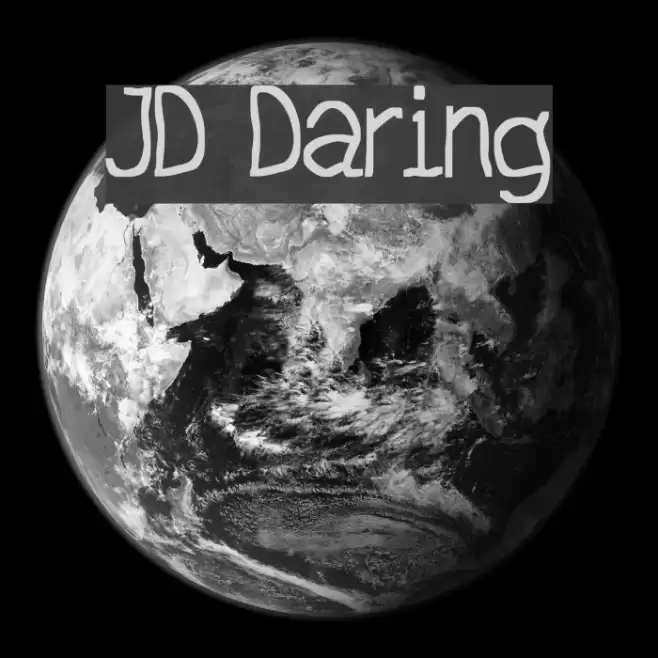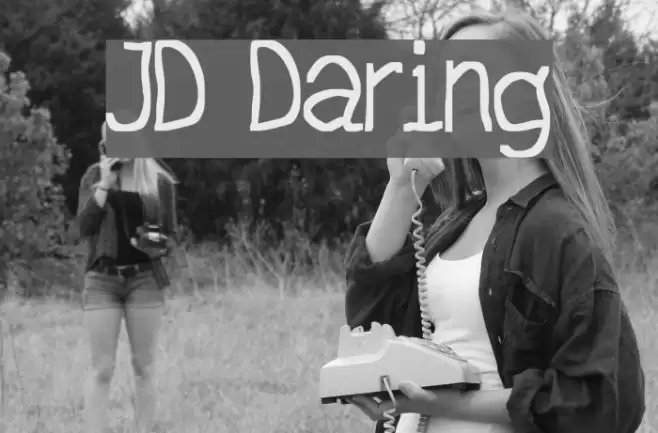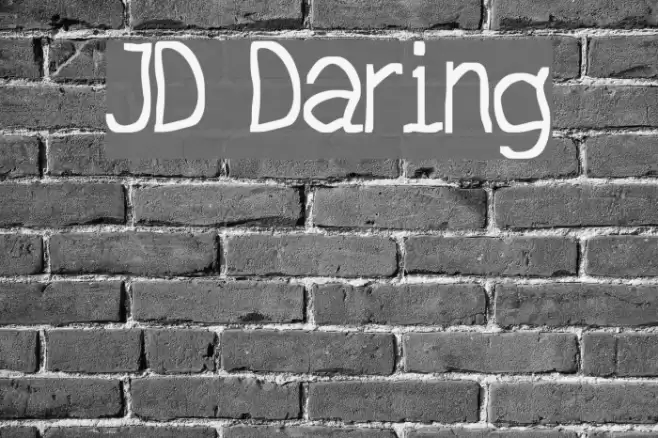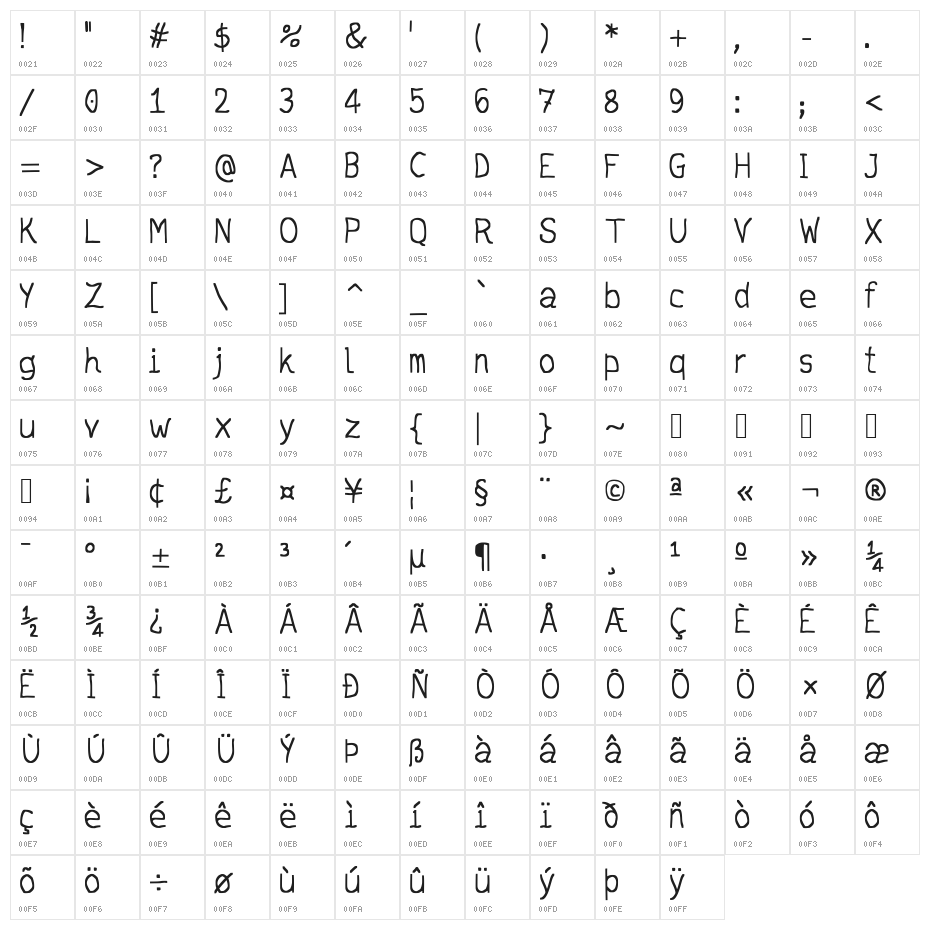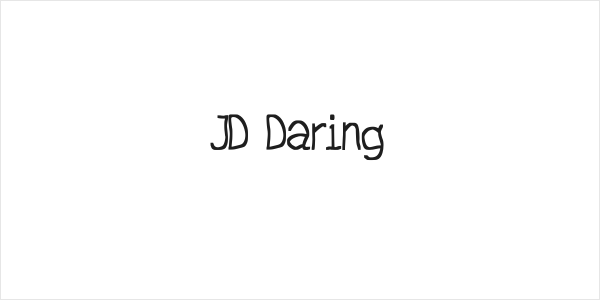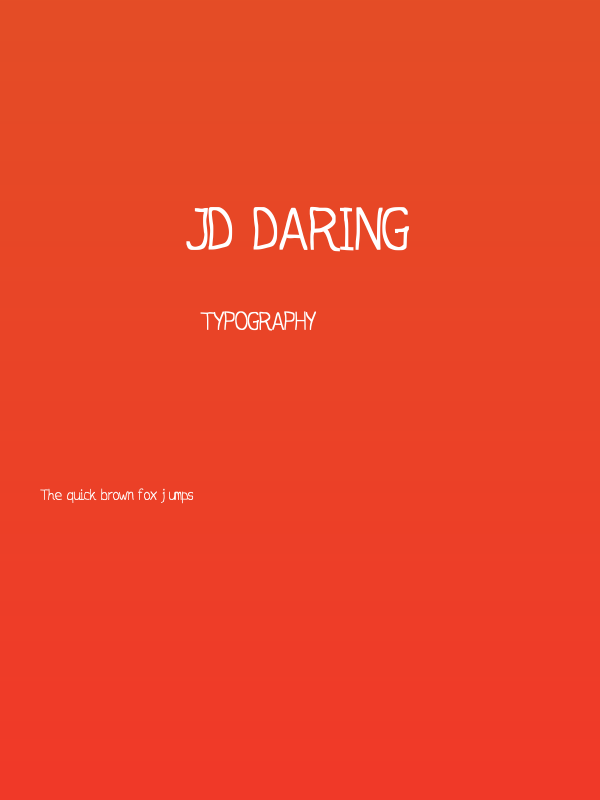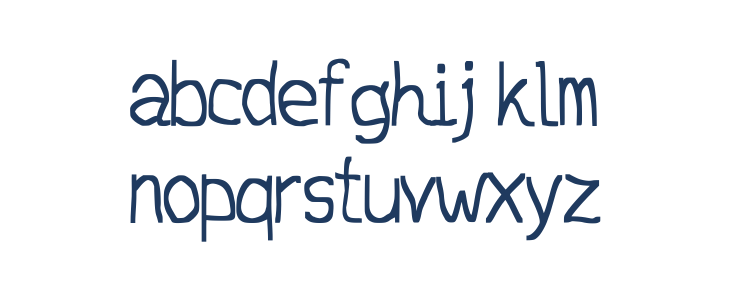
JD Daring Font
JD Daring Description
This font features a playful and informal style with hand-drawn characteristics. The letters are slightly irregular, giving a whimsical and casual appearance. The uppercase and lowercase letters maintain a consistent height, while the strokes are uneven, adding to the font's charm. The numerals and special characters follow the same playful design, making it suitable for creative projects. Its unique style makes it stand out, while still being legible and versatile.
A playful, hand-drawn font with irregular strokes and a whimsical style from Uncategorized fonts.
- Proposed Projects: Ideal for children's books, casual invitations, greeting cards, and creative branding projects.
- Overall Style: Casual
- Use Case: Headlines, Logos, Informal Text